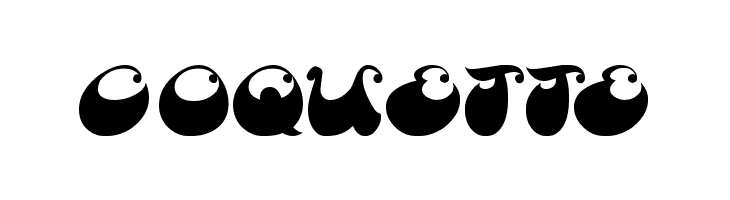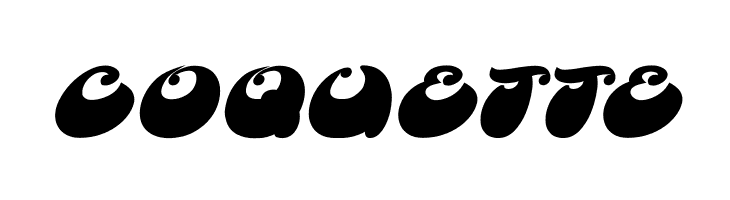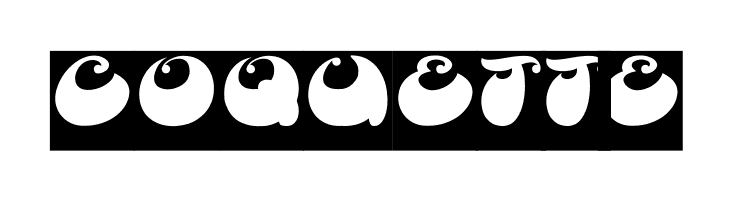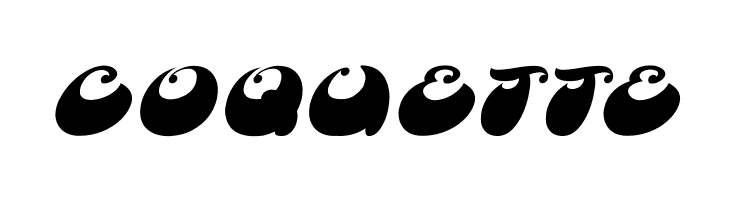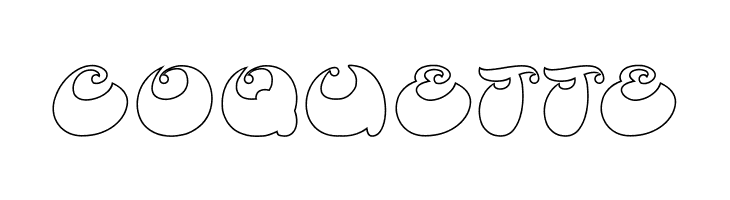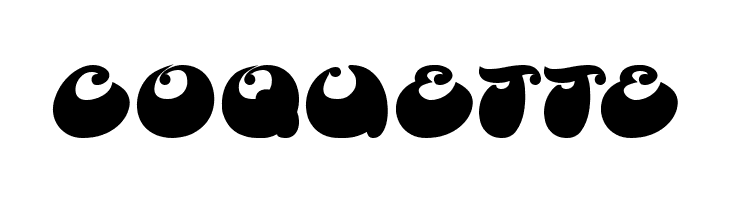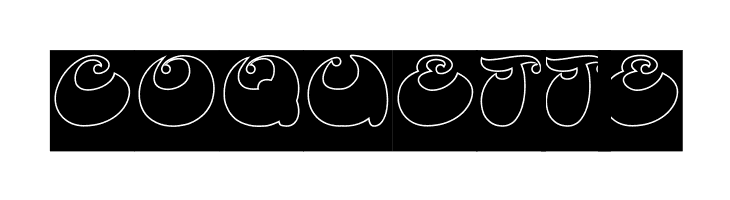
A classic serif font with an open face design, offering elegance and readability.
A bold, angular font with sharp, splintered edges for a striking appearance.
A futuristic, angular font with a bold, geometric design.
A whimsical collection of goblin illustrations, each with unique character and style.
A bold, industrial-style font with high contrast and angular edges.
A modern, geometric sans-serif font with clean lines and a friendly appearance.
A bold, pixelated font with a retro, digital aesthetic.
A bold, geometric font with a modern, industrial feel.
A bold, textured font with a halftone effect, ideal for creative projects.
A decorative and playful font with intricate patterns and artistic flair.
A playful, rounded font with bold, smooth curves and a friendly, whimsical style.
A playful, rounded font with smooth curves and a friendly appearance.
A bold, playful Western-style font with rounded, thick strokes and bulbous terminals.
A bold, playful font with rounded edges and thick strokes.
A bold, rounded font with a playful and modern style.
A bold serif font with high contrast and classic elegance.
A bold, italicized font with dynamic and modern letterforms.
An elegant serif font with an italic slant and moderate stroke contrast.
A classic serif font with elegant, sharp serifs and a sophisticated appearance.
A playful, hand-drawn font with a whimsical, cartoonish style.
A bold, artistic font with dynamic angles and curves, perfect for creative projects.
A modern, geometric font with a clean and minimalistic design.
A modern, geometric font with clean lines and a structured, futuristic appearance.
A bold, geometric font with a modern and impactful design.
A bold, geometric font with a modern, tech-inspired design.
A bold, modern font with a unique halftone texture and consistent width.
A Gothic-inspired decorative font with ornate, playful letterforms and high contrast.